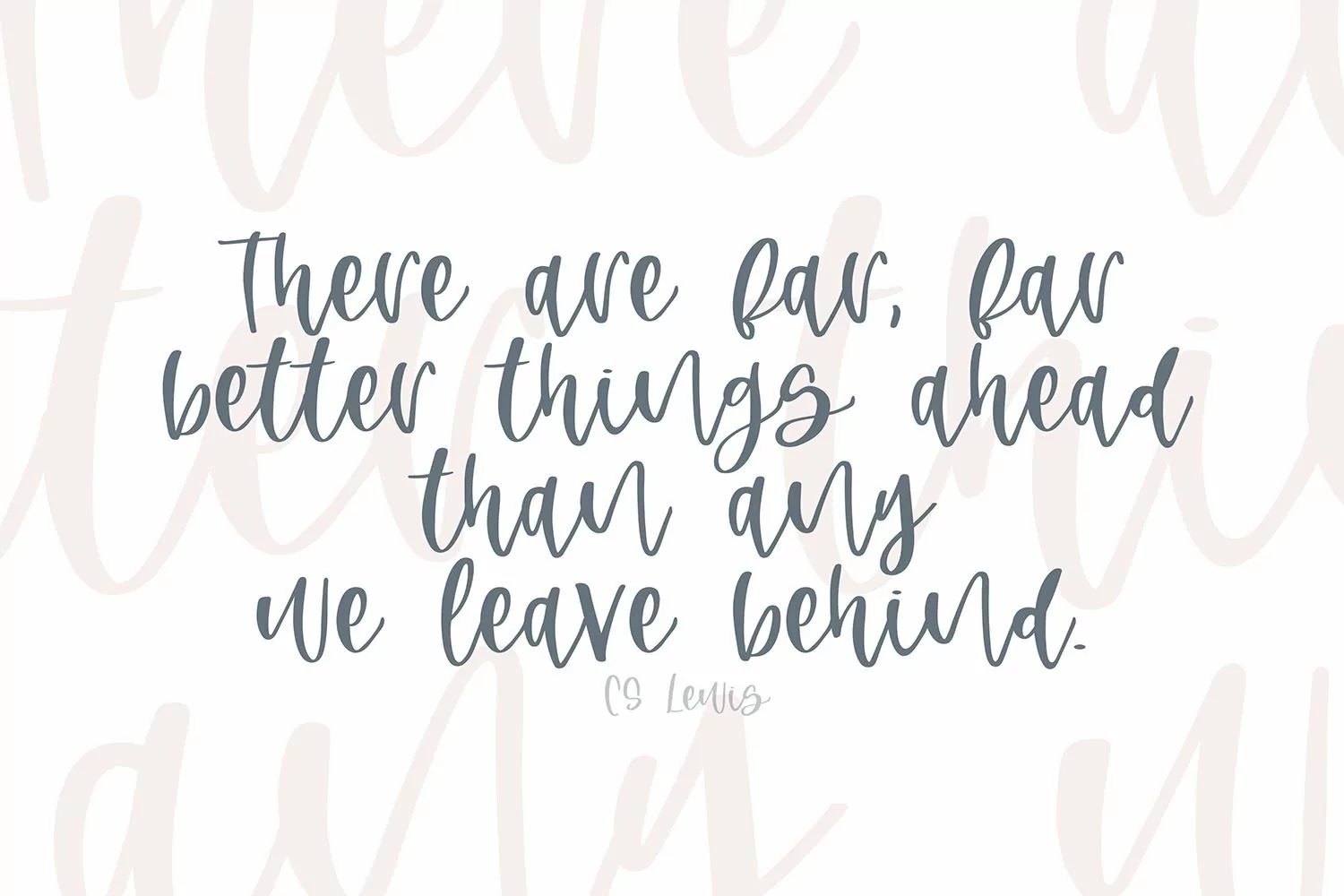
Appleberry
This font is hand lettered! Use this fun & cute font for all of your creative needs! Making invitations, SVGs, graphic design projects, shirts, wood signs, cards, social media, stickers, blog posts, and much more!
This is a smooth font - perfect for cut machines like Cricut and Silhouette!